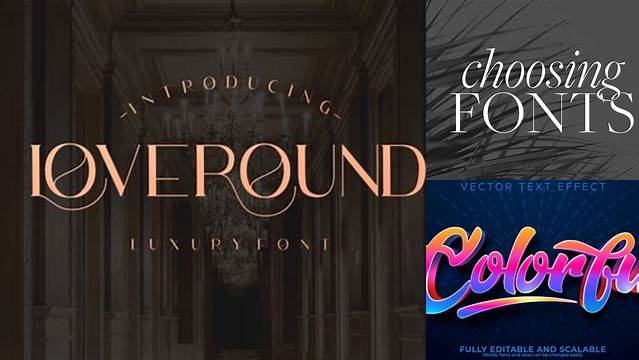
Freepik Fonts: Your Ultimate Guide To Stunning Visuals
The World of Freepik Fonts: A Gateway to Design Excellence
Guys, let's dive headfirst into the awesome world of Freepik fonts! If you're anything like me, you're always on the lookout for that perfect font that can transform a simple design into a true masterpiece. Well, buckle up because Freepik fonts are here to save the day. We're talking about a massive library of fonts, carefully curated and ready to elevate your creative projects. Whether you're a seasoned graphic designer, a budding social media enthusiast, or just someone who loves to tinker with visuals, Freepik fonts have something for everyone.
So, what makes Freepik fonts so special? First off, the sheer variety is mind-blowing. You'll find everything from elegant serifs that scream sophistication to bold sans-serifs perfect for modern designs, and playful scripts that add a touch of personality. The selection is constantly updated, ensuring you always have access to the latest trends and design styles. Beyond the variety, the quality of Freepik fonts is top-notch. Each font is meticulously crafted, with attention to detail that ensures readability and visual appeal across different sizes and contexts. You won't find any blurry or poorly designed fonts here. And let's not forget the convenience factor. Freepik makes it super easy to browse, download, and integrate fonts into your projects. The user-friendly interface allows you to preview fonts, see how they look in different scenarios, and download them with just a few clicks. It is also important to note that most of the fonts on Freepik come with flexible licensing options, including commercial use, so you can use them for your personal projects. Get ready to explore the world of Freepik fonts and unlock the power of typography!
Exploring the Diverse Styles of Freepik Font Options
Alright, let's get into the nitty-gritty of the font styles you can find on Freepik. Knowing the different categories is key to finding the perfect font for your specific project. You have the classic serif fonts, which are known for their elegant and traditional feel. They're characterized by the small strokes, or serifs, at the ends of the letters. Serifs are great for long-form content, such as articles and books, because they make text easier to read. Sans-serif fonts, on the other hand, lack those little strokes. They offer a clean, modern look that is incredibly versatile. Perfect for headlines, social media graphics, and any design where you want a contemporary vibe. Then, there are script fonts, mimicking handwriting. These add a touch of personality and flair. They are great for adding a personal touch to invitations, logos, and branding materials.
Display fonts are designed to make a statement. These are often bold, unique, and attention-grabbing. They are ideal for headings, posters, and any design where you want to make a visual impact. Beyond these main categories, Freepik also offers a wide range of subcategories and special font styles. You can find fonts based on themes, such as vintage, retro, or futuristic. You can explore fonts designed for specific purposes, like headings, body text, or logos. The range is almost limitless, so you're bound to find something that fits your needs. When choosing a font, keep in mind the overall tone and style of your project. Does it need to be professional and serious, or fun and playful? Is the target audience more traditional or modern? Once you have answered these questions, it is much easier to narrow down your choices and find the perfect Freepik fonts to match your vision. Remember, typography can make or break your design, so taking the time to choose the right font is always worth it!
Detailed Analysis: Serif, Sans-Serif, Script, and Display Fonts on Freepik
Okay, let's do a deeper dive into the most popular font categories on Freepik. We have Serif fonts, which are perfect for conveying elegance and tradition. These fonts have small strokes, which add a visual appeal and can improve readability in large blocks of text. They're commonly used in print media, such as books, magazines, and newspapers. On Freepik, you'll find a ton of variations within the serif category, from classic Times New Roman-inspired fonts to more modern takes that incorporate unique design elements. Sans-serif fonts, as we said earlier, are characterized by a clean, minimalist look, ideal for modern designs. They lack those strokes, which creates a simple and streamlined aesthetic. They are extremely versatile and work well in almost any context, from websites and mobile apps to branding materials. Freepik's sans-serif collection includes everything from simple, functional fonts to more expressive and creative options.
Next up are the script fonts, which mimic handwriting, adding a touch of personality and flair to your designs. They are ideal for a personal touch in logos, invitations, and other materials. The options on Freepik range from elegant calligraphy styles to more casual and handwritten fonts. Remember that legibility is key. Finally, we have display fonts, which are designed to make a statement. These are often bold, unique, and attention-grabbing. They are perfect for headlines, posters, and any design where you want to make a visual impact. Freepik offers a massive selection of display fonts, including options with various styles, sizes, and effects. In each category, the fonts are designed to cater to specific needs and design goals. Experimenting with different combinations is a fun way to see what best fits your needs. So, take your time to browse the Freepik library and find the perfect fonts to make your design stand out!
Choosing the Right Freepik Font for Your Project
Choosing the right font is a crucial step in any design project. It can make a massive difference in how your message is perceived. It's like choosing the right clothes to wear to a party or a date, the font should match the context. So, how do you choose the perfect Freepik font? First, define your design's purpose and target audience. Who are you trying to reach, and what message do you want to convey? Are you designing a website for a tech startup or a vintage shop? The answers to these questions will guide your font choices. The tone and style of your project should align with the font. Do you want it to be serious, playful, modern, or traditional? Each font conveys a different feeling, so choose one that reflects your brand's personality.
Consider the readability of the font, making sure it's easy to read. This is extremely important, especially for text-heavy designs. The type of media also matters. For print, serifs often work well, while sans-serifs are great for digital displays. The font's appearance is also very important. Is it a bold, condensed, or decorative font? Consider its weight and style. Finally, experiment with different fonts. Try out various combinations. Download the fonts you like from Freepik and test them in your design. It's often a trial and error process, so don't be afraid to experiment until you find the perfect fit. By following these steps, you'll find the Freepik font that not only looks great but also communicates your message effectively. Remember, the right font can bring your design to life, so taking the time to choose wisely is always worth it.
Leveraging Freepik Fonts for Stunning Graphic Design
Integrating Freepik Fonts in Branding and Logos
Guys, let's talk about how to use Freepik fonts to create a killer brand identity. Your brand's identity is like its face. It is how your audience recognizes and remembers your brand. The right font plays a huge role in crafting that face. When choosing a font for your logo, consider what kind of vibe you want to give off. Do you want to come across as modern, traditional, playful, or sophisticated? The font should align with the brand's personality. You may want to use a unique font or a combination of fonts. A strong logo often uses a distinctive display font for the brand name and a complementary font for the tagline. Keep it simple, but striking. Don't try to cram too many fonts into your logo.
Consistency is also important. Use the same fonts across all of your branding materials, including your website, social media, and print materials. This helps to create a unified and recognizable brand. Before you commit to a font, test it across all your materials. See how it looks in different sizes, colors, and contexts. Ensure it's readable and visually appealing. Using Freepik fonts can be a great way to get started. They offer a wide range of high-quality fonts, including options that are perfect for creating logos and branding materials. You can also find ready-to-use font combinations that are designed to work well together. By taking the time to choose the right fonts, you can create a memorable and impactful brand identity. Remember that your brand's identity should communicate its values and personality, so make sure your fonts reflect that. It takes practice, so take your time to find the right font. If you have the budget, consider hiring a professional designer. They can help you create a brand identity that really stands out.